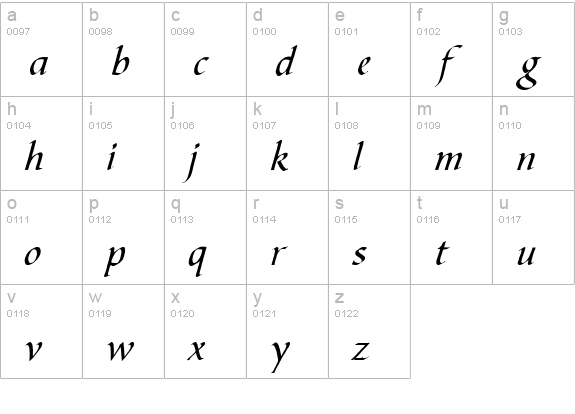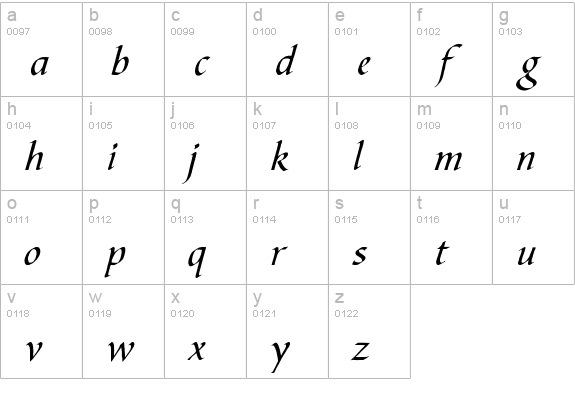
Oekumene Font Details
Oekumene font is a stunning and versatile typeface designed to elevate your design projects to the next level. With its elegant yet modern style, Oekumene is perfect for a wide range of applications, from branding to editorial design. The clean lines and balanced proportions of this font make it both sophisticated and easy to read, ensuring that your message is communicated effectively. What sets Oekumene font apart is that it is not only visually striking but also completely free to use. You can download Oekumene font for free at FontsMarket.com, making it accessible to designers of all levels. Whether you're working on a personal project or a client's campaign, Oekumene font will bring a touch of sophistication and professionalism to your work. Don't miss out on the opportunity to enhance your designs with the beauty of Oekumene font. Download it today and see the difference it can make in your projects.